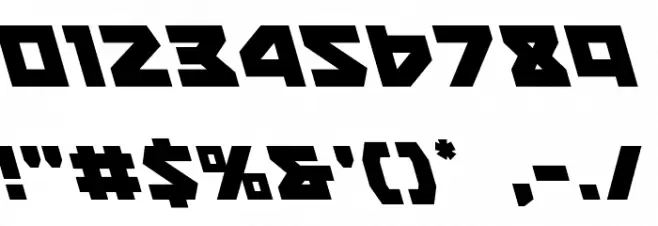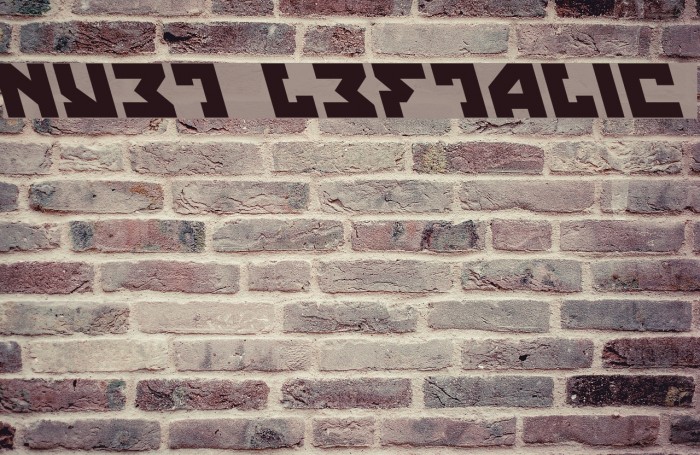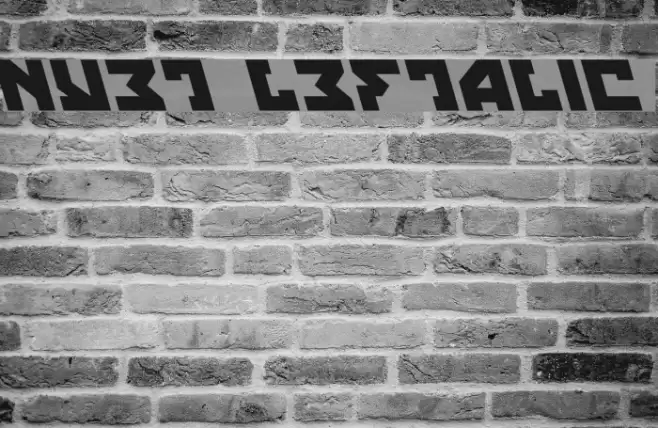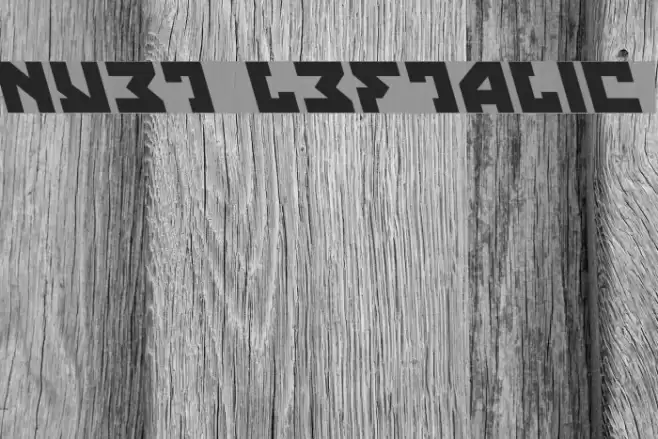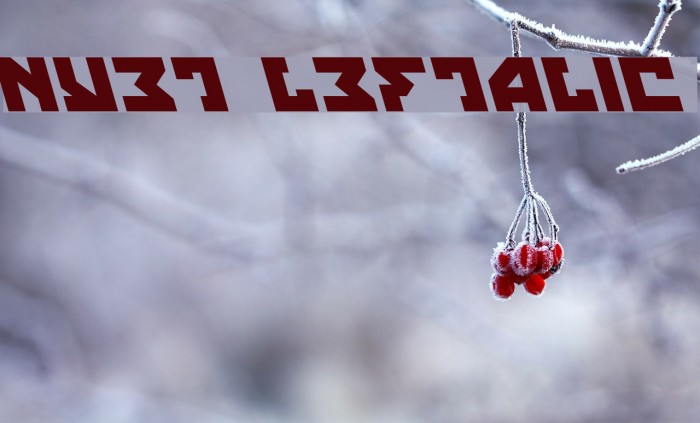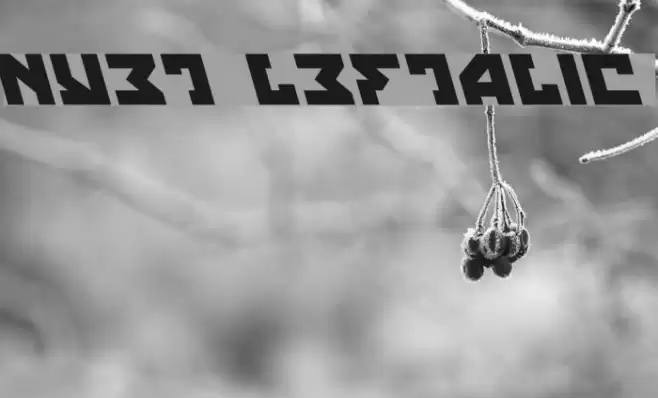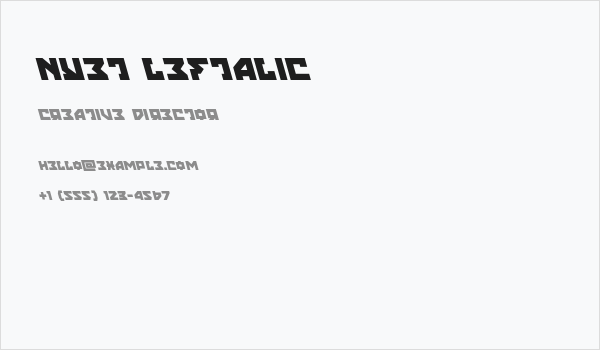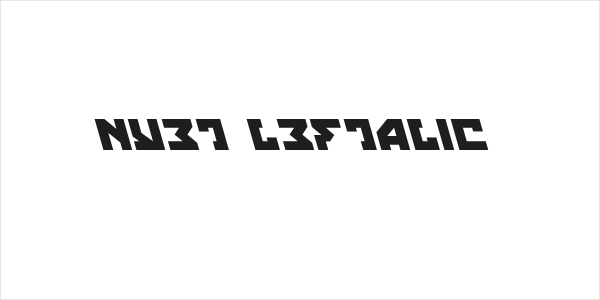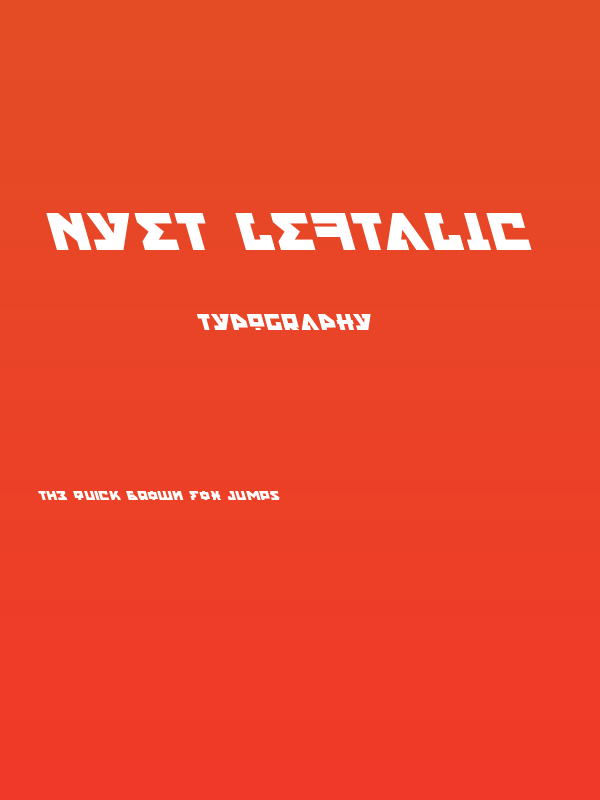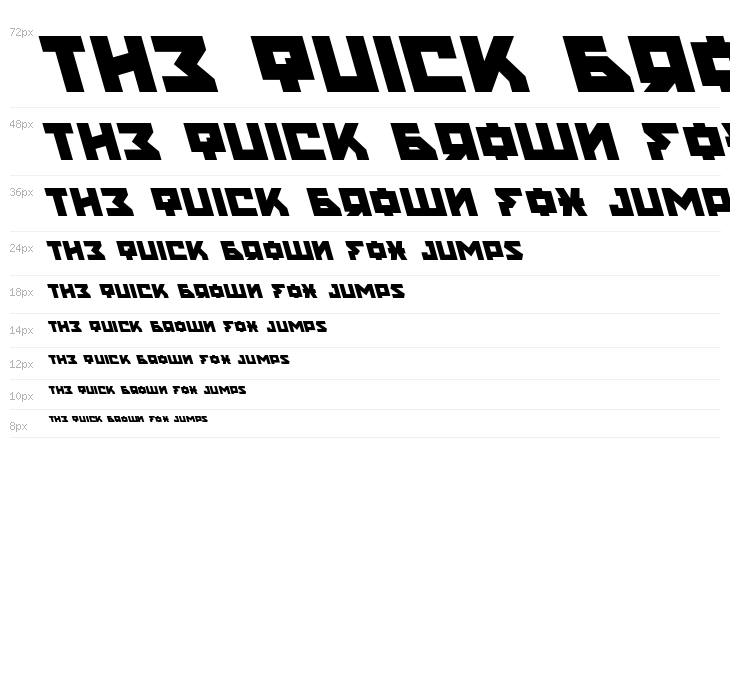
Nyet Leftalic Font
Nyet Leftalic Description
This font features a bold and angular design with a distinct geometric style. The characters are sharply cut with a futuristic and edgy appearance, making it stand out with its unique aesthetic. The uppercase and lowercase letters maintain a consistent width, giving the font a uniform look. The numbers and special characters follow the same angular theme, ensuring a cohesive design throughout. The font's boldness and sharp edges make it ideal for attention-grabbing headlines and modern design projects.
| Proposed Projects | Ideal for sci-fi themed designs, video game graphics, posters, and branding that requires a modern and edgy look. |